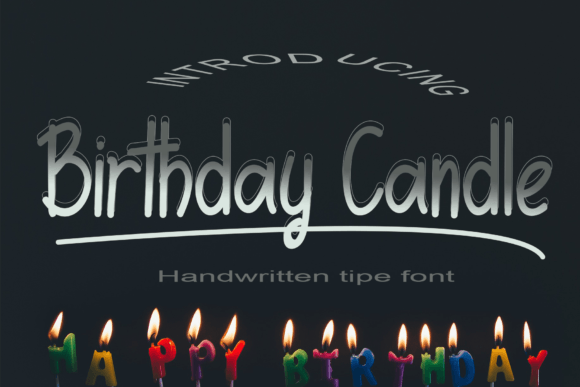
Sparkle Up Your Designs with Birthday Candle Font
Have you ever stared at a blank canvas, waiting for the perfect spark to ignite your creativity? That’s exactly what happened to me when I stumbled upon the Birthday Candle Font. Its elegant, handwritten charm instantly captured my attention, and I knew I had to dive deeper.
The Birthday Candle Font is a beautifully crafted, fancy handwritten font designed to elevate your creative work. Perfect for logo design, social media graphics, movie titles, and book titles, this font is a treasure trove of possibilities. Whether you’re a seasoned designer or a newcomer to the world of typography, the Birthday Candle Font is sure to inspire you to create something truly magical.
As a designer, you understand the importance of having the right tools at your disposal. The Birthday Candle Font is a valuable addition to any design arsenal, allowing you to add a touch of whimsy and personality to your work. So why not give it a try and see what kind of stunning creations you can come up with?
Birthday Candle Font Key Features
- Unique Characteristics: The font features intricate candle illustrations and custom-designed birthday-themed icons, making it a unique and eye-catching choice for birthday celebrations and related designs.
- Kerning and Ligatures: The font includes advanced kerning and ligature features to ensure seamless letter spacing and connection between characters.
Birthday Candle Font Review
First off, I have to say that I’m a fan of the whimsical feel that the Birthday Candle Font brings to the table. ✨ The cursive script and playful flair are sure to add a touch of personality to any design. The font is also surprisingly legible, making it a great choice for body text as well as headings.
The Birthday Candle Font comes with a range of useful features, including:
- Multiple weights and styles to choose from
- Support for a wide range of languages
- High-quality vector graphics for crisp, scalable designs
However, there are a few limitations to consider. ⚠️ For one, the font may not be suitable for very formal or professional designs, as it has a somewhat playful and youthful vibe. Additionally, the font files are relatively large, which may be a concern for designers working with limited storage space.
Overall, I think the Birthday Candle Font is a great choice for designers looking to add a bit of whimsy to their projects. With its unique style and range of features, it’s a great option for anyone looking to create eye-catching and engaging designs.
The Birthday Candle Font is ideal for creating festive and celebratory designs, such as:
- Birthday invitations and cards
- Party decorations and signage
- Special occasion graphics and images